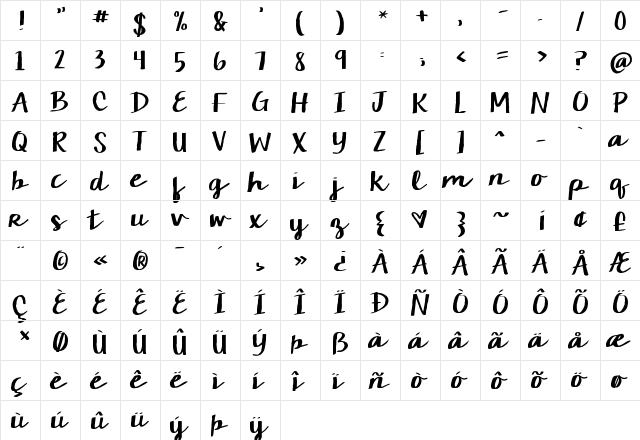
KG Chelsea Market Script Regular
| Foundry | Kimberly Geswein |
| Designer | Kimberly Geswein |
Design Context for KG Chelsea Market Script Typeface
KG Chelsea Market Script flows with the natural rhythm of handwritten lettering, making it ideal for designs that call for warmth and personal expression.
Font Pairing: Combine KG Chelsea Market Script with a simple geometric sans for maximum contrast — the tension between flowing curves and clean structure is a classic typographic pairing.
Pro Tip: Pair KG Chelsea Market Script with a clean sans-serif for supporting text. The contrast between fluid script and geometric structure creates an elegant typographic hierarchy.